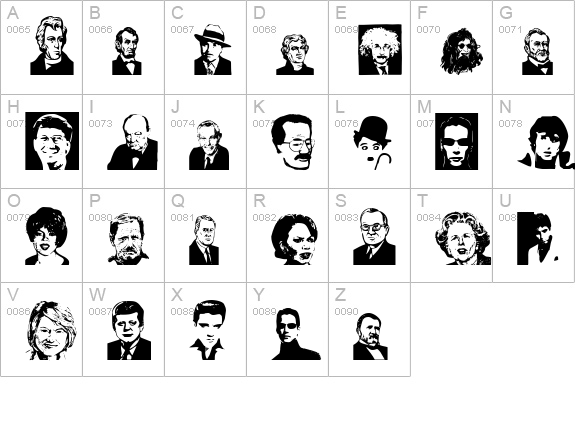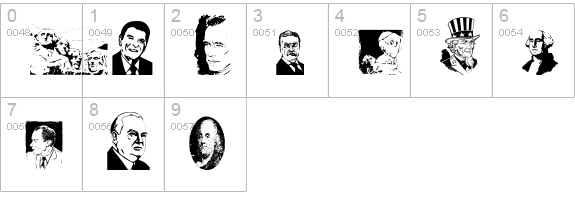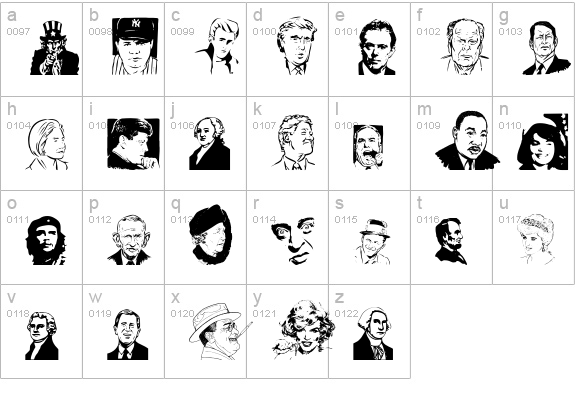
Introducing Famous Faces font, a stunning and elegant typeface that will elevate your design projects to the next level. This font features a unique blend of sophistication and charm, making it perfect for a wide range of applications, from branding to social media graphics. With its classic yet modern appearance, Famous Faces font is sure to make a lasting impression on your audience. Whether you're working on a logo, website, or promotional materials, this font will help you stand out from the crowd. And the best part? Famous Faces font is completely free to download at FontsMarket.com. So why wait? Add this beautiful typeface to your collection today and watch your designs come to life!